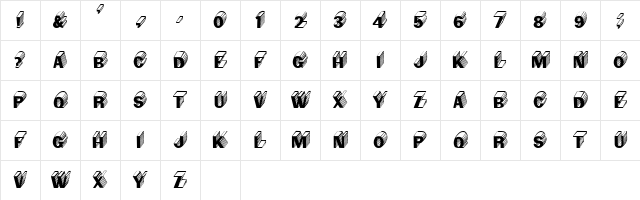
Salter Medium
Salter Family
Salter Medium
Design Context for Salter
Salter is a composed and adaptable typeface that performs quietly and consistently across a wide range of design contexts.